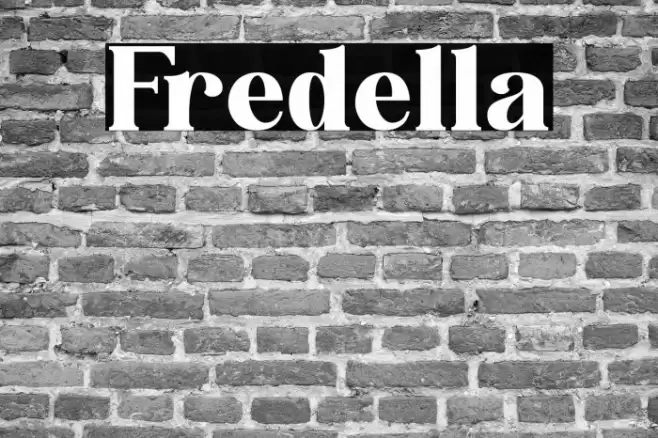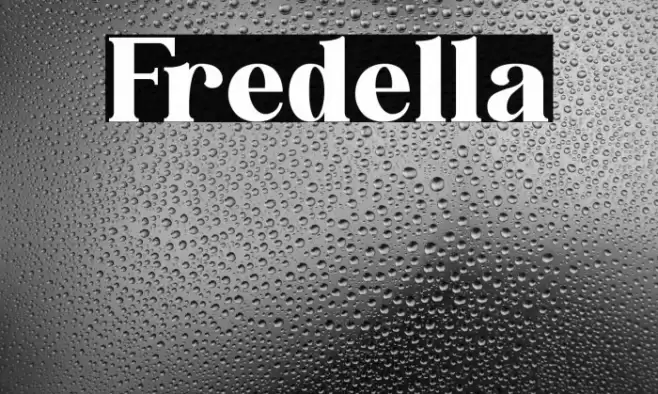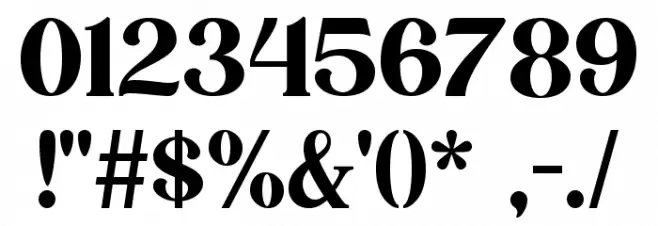
Fredella Font
Fredella Description
This font features a bold and dramatic serif style, characterized by thick strokes and high contrast between thick and thin lines. The serifs are pronounced and add a touch of elegance and tradition, making it suitable for formal and impactful designs. The uppercase letters exhibit a strong presence, while the lowercase letters maintain a consistent style with slightly rounded edges. The numerals are clear and distinct, ensuring readability. Special characters are well-integrated, maintaining the overall aesthetic. This font is ideal for creating a classic and authoritative look.
A bold serif font with high contrast and elegant serifs, perfect for impactful designs from Regular fonts.
- Proposed Projects: Ideal for book covers, headlines, branding, and editorial design where a classic and authoritative look is desired.
- Overall Style: Classic
- Use Case: Headlines, Logos, Editorial design